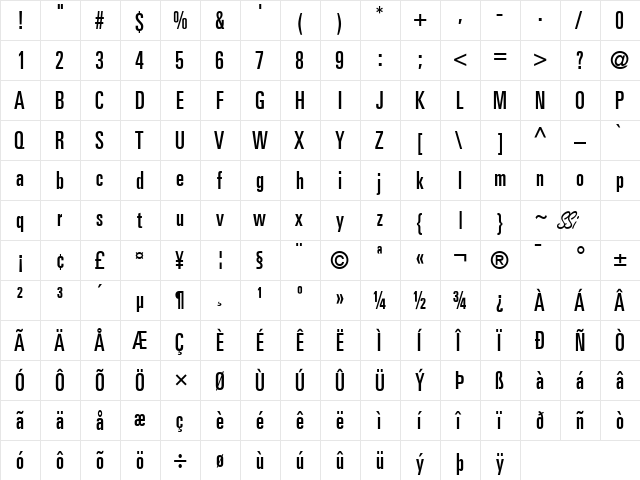
Nova Ultra SSi Ultra Condensed
Design Context for Nova Ultra SSi Typeface
Nova Ultra SSi takes a measured approach to typography — its balanced proportions and neutral character make it a reliable workhorse for both digital and print work. Its narrow stance lets it pack a punch even in space-constrained designs.